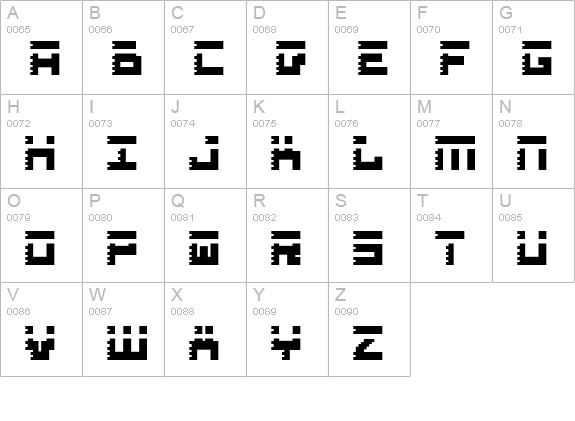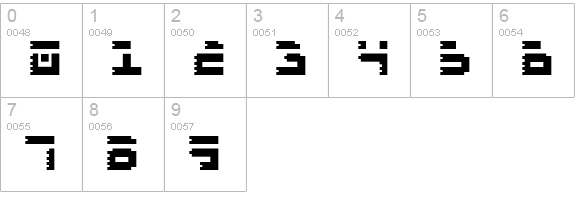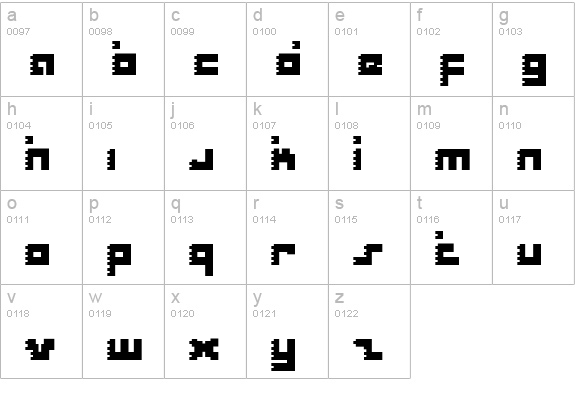
Roid Rage Condensed is a distinctive, condensed-width variant in the Roid typeface family \xE2\x80\x94 well suited to design and typography projects.
Roid Rage Condensed font is a bold and dynamic typeface that exudes strength and power. With its sharp edges and aggressive style, this font is perfect for making a statement in your design projects. Whether you're creating posters, logos, or headlines, Roid Rage Condensed will grab attention and leave a lasting impression. What makes Roid Rage Condensed even more appealing is that it is available for free download at FontsMarket.com. Yes, you read that right - this striking font can be yours at no cost, allowing you to unleash your creativity without breaking the bank. So why wait? Go ahead and download Roid Rage Condensed today to add a touch of intensity to your designs.